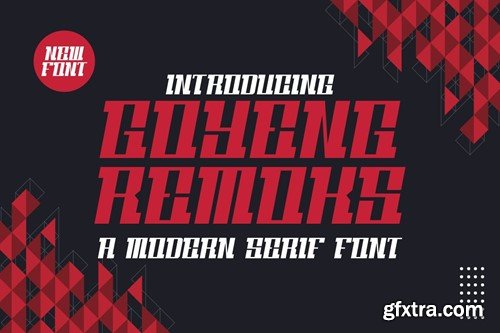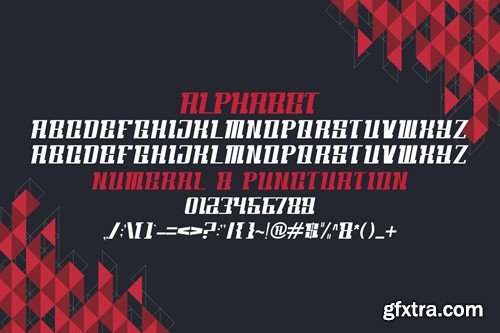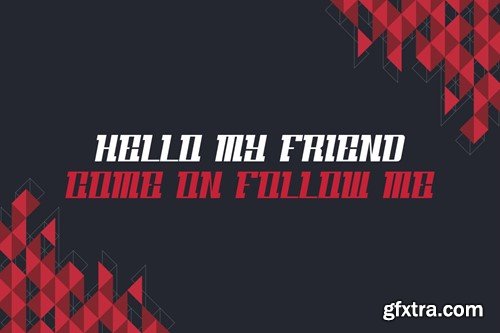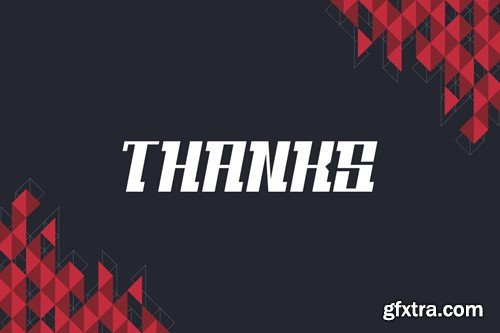
Goyeng Remoks Font
Introducing Goyeng Remoks Modern Sans Serif. Goyeng Remoks is a modern and simple font, best used as a display for headings, logos, branding, magazines, product packaging and invitations. Goyeng Remoks come with clean lines and smooth curves give any project an extra touch of class. What you get: Thank you.